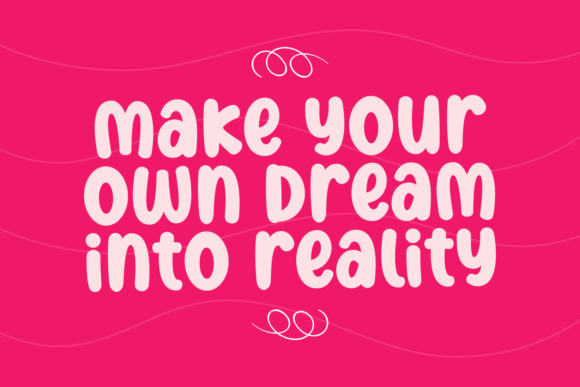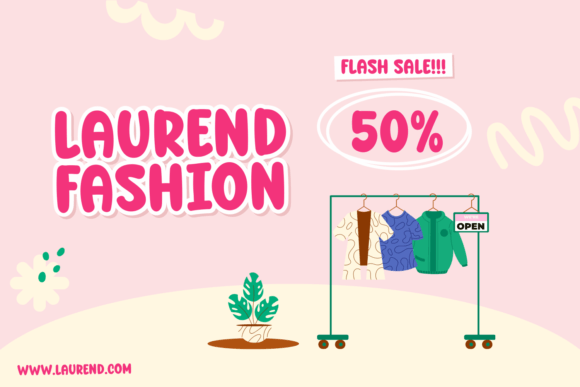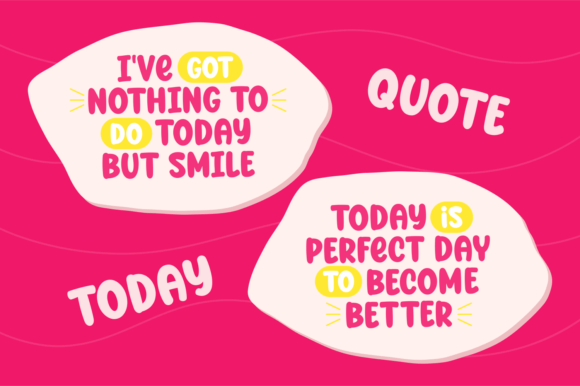
Introduction to Pink Gummy Font
Introducing Pink Gummy, an irresistibly charming font that is sure to infuse your design projects with a delightful dash of character.
This darling typeface not only makes a bold statement but also sweetens your visuals in a way that is endearingly cute It’s a dream to use, be it for creating lively greeting cards, vibrant posters or eye-grabbing social media graphics.
Key Features of Pink Gummy Font
Why Choose Pink Gummy Font?
Pink Gummy Font offers exceptional quality and versatility, making it a valuable addition to your design toolkit. Whether you’re creating for personal projects or commercial use, Pink Gummy Font delivers professional results.